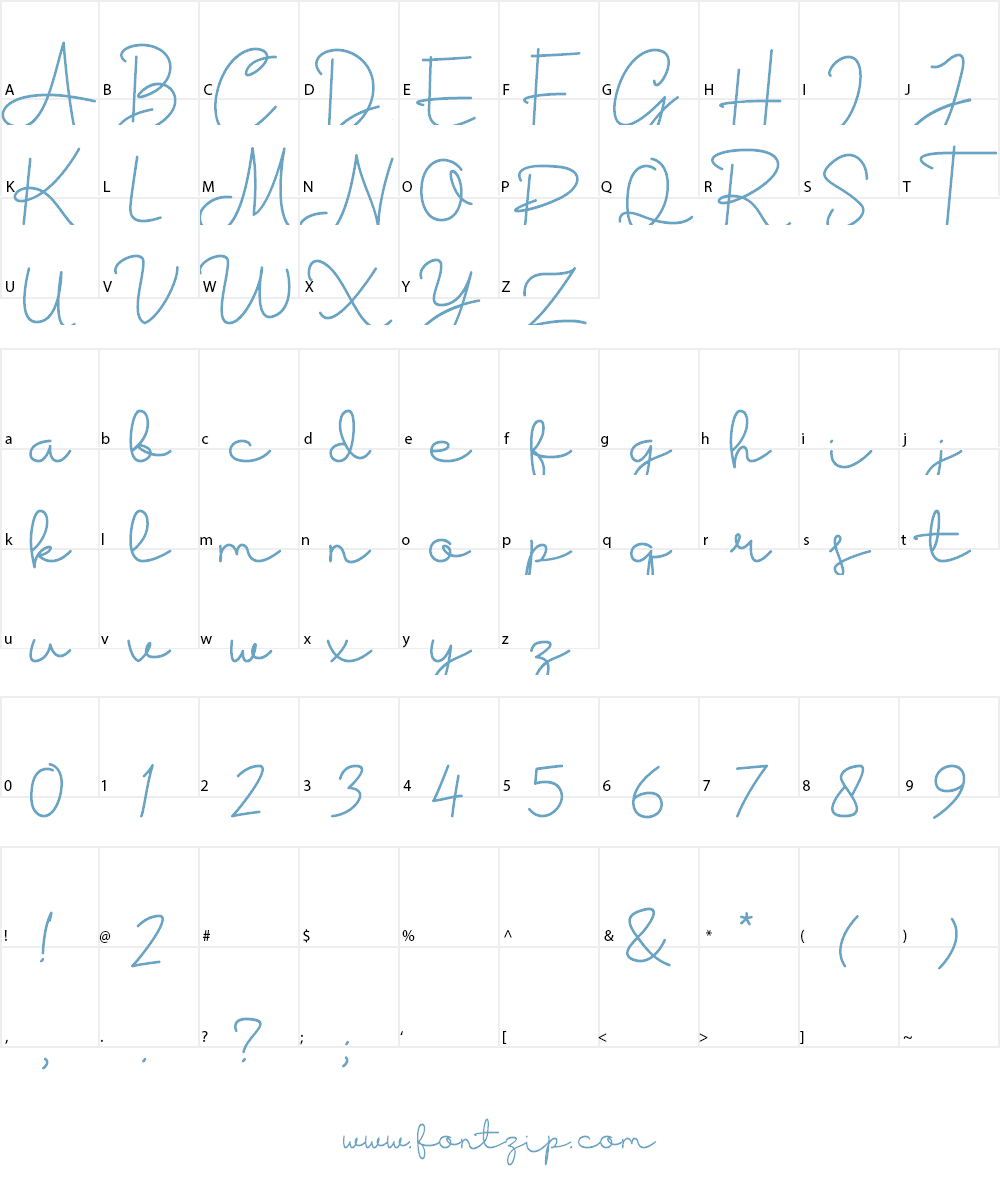
Hi Introducing, this is our first product, we named this product Housttik Font. Housttik Font is a style of modern handwriting, with touch minimalist, clean, modern.
Housttik Fonts are very good at this time: photography, logos & branding, posters, watermarks, advertisements, invitation, product designs, labels, stationery, wedding designs, product packaging, special events or anything that need handwriting taste.